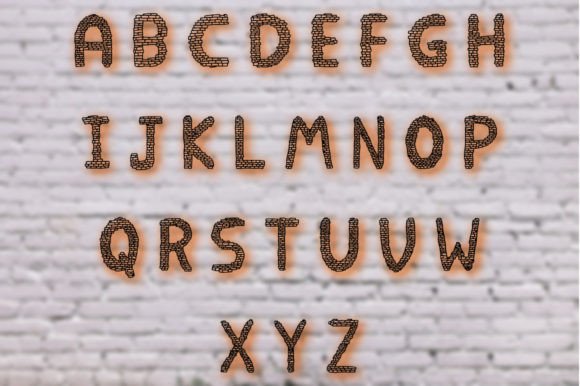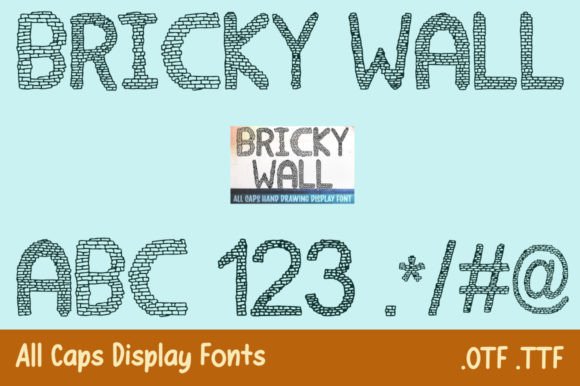
The Bricky Wall Font: A Designer’s New Best Friend
I’ll never forget the time I was working on a DIY project for a client’s home decor item. I had the design concept nailed, but something was missing – the perfect font to give it that lovely brick touch. After hours of scouring the internet, I stumbled upon the Bricky Wall font, and it was love at first sight! 💕 In this article, I’ll share my experience with this amazing font, its features, and how to make the most of it in your designs.
- ✨ The Bricky Wall font is a cool, hand-made decorative font that adds a unique touch to any design.
- ✅ It’s perfect for creating DIY projects, home decor items, and anything that requires a lovely brick aesthetic.
- 🎉 The font has a playful, whimsical feel that’s sure to delight your clients or audience.
While the Bricky Wall font is amazing, it’s not perfect. Here are a few things to keep in mind:
- 🤔 The font can be a bit tricky to read at small sizes, so make sure to use it in larger sizes or for short text snippets.
- Experiment with OpenType features, such as glyphs and stylistic alternates, to add more personality to your design.
The Designer Inspiration Behind Bricky Wall Font
The Bricky Wall font was inspired by the classic brick walls found in old homes and buildings. The designer wanted to create a font that captured the warmth and character of these walls, and the result is a font that’s both playful and elegant. 💡
Q: What is the Bricky Wall font best used for?
A: The Bricky Wall font is perfect for creating DIY projects, home decor items, and anything that requires a lovely brick touch.